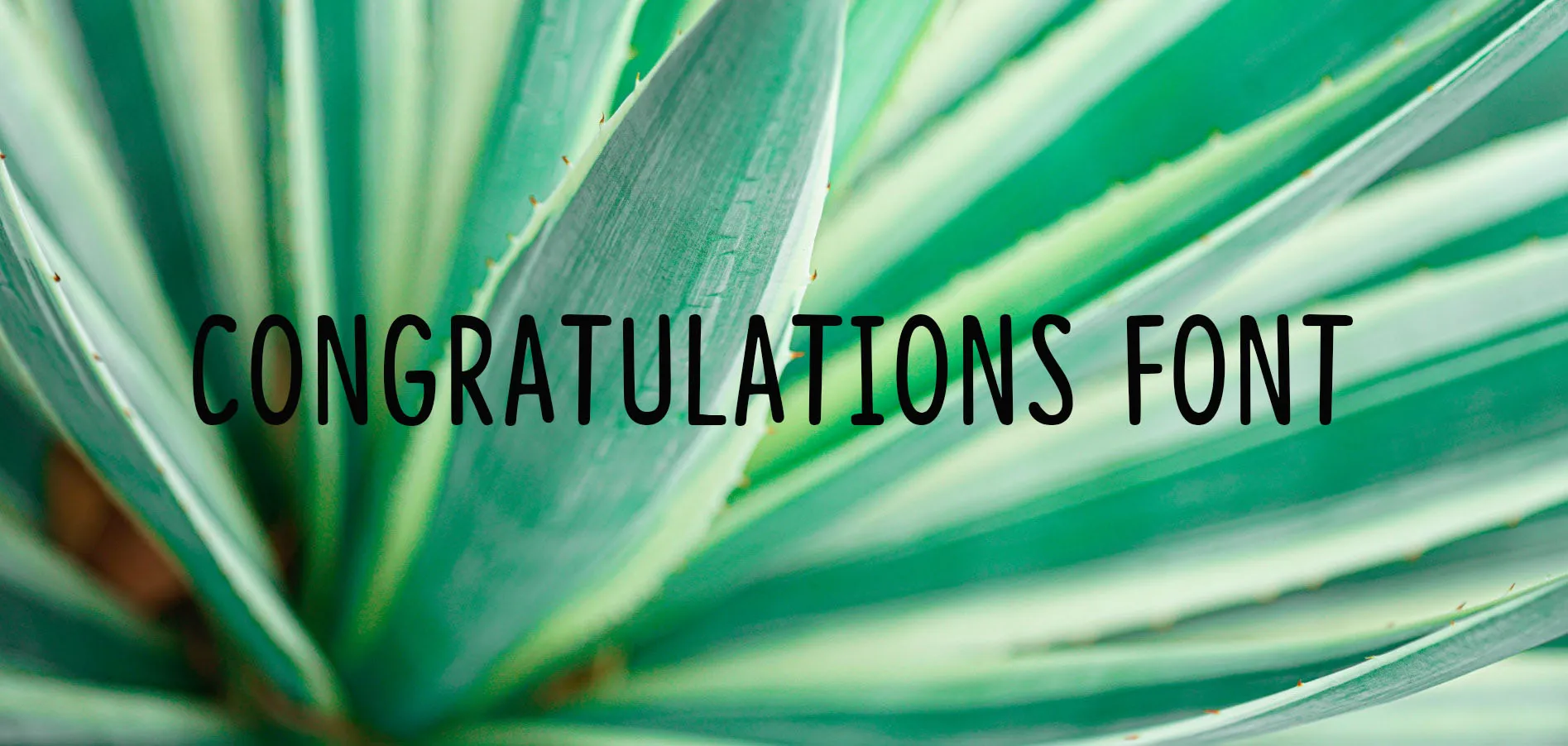
Congratulations Font Family is a Multi-tasks handwritten typeface that was designed and shared by Paperstreet in 2017. A complete font package for your titles as well as larger portions of text. This font family comes in only one regular weight and provides more than 300 characters in its full version including uppercase, lowercase, numbering, general punctuations, currency symbols, icons, and some special characters.
Since it was released, It has grabbed all the attraction of its viewers due to its clean and soft looks same as some sans-serif typeface like Archivo Font.
Congratulations Font